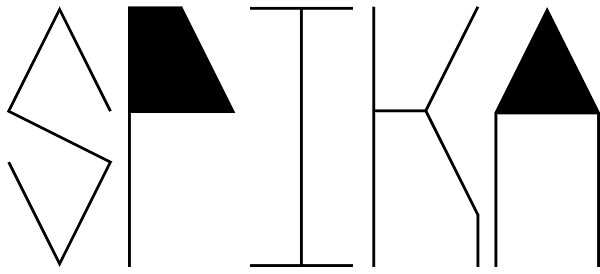
Spika
Spika is a geometric, monospaced sans serif font. This tall, condensed typeface is simple in its structure yet strong in its design. Informed by basic geometry and inspired by simplistic, clean design principles. Spika has an almost retro style but...